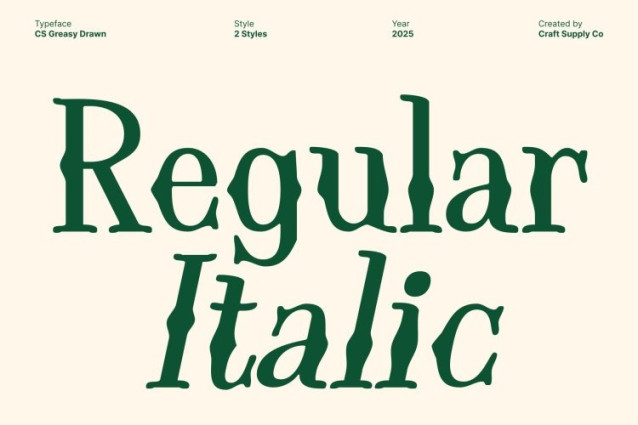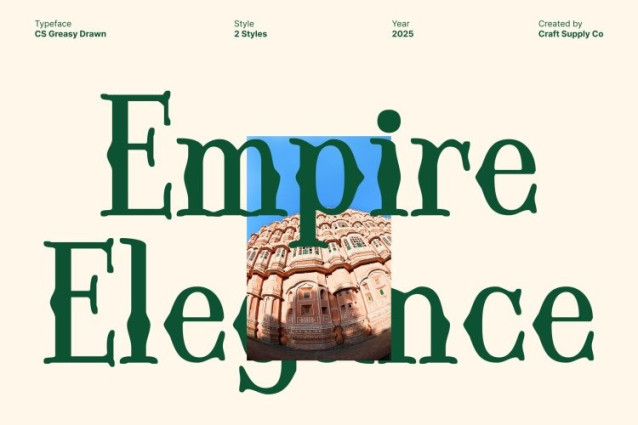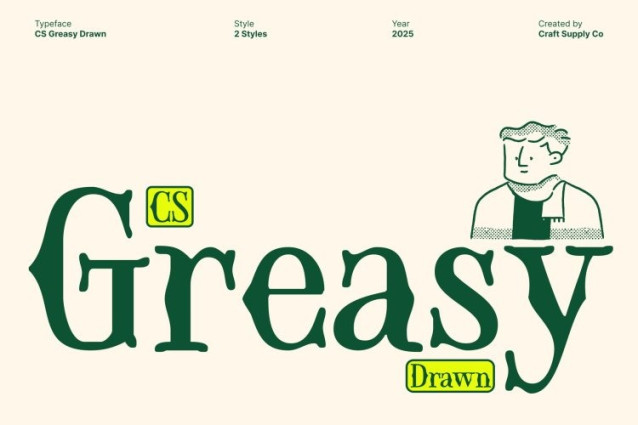
CS Greasy Drawn Font This font brings together the timeless elegance of Uncial letterforms and the decorative flair of Tuscan styling. Its unique structure echoes ancient scripts while adding distinctive flared details that elevate each character. This fusion creates a display font that feels historic, refined, and visually captivating perfect for designers seeking a typeface with deep cultural resonance.
Hand-Drawn Artistic Finish for Authentic Texture
Enhancing its classical foundation, features a hand-drawn artistic texture that introduces warmth, softness, and natural irregularity. The drawn effect enriches every curve, making the font feel organic and expressive.
Perfect for Book Titles, Luxury Branding, and Classical Posters
With its historic tone and artistic texture, this typeface shines in sophisticated, narrative-driven design. Use it for book titles, luxury branding, vintage packaging, exhibition posters, editorial features, or classical visual themes. Its decorative structure and expressive finish make it ideal for projects that require both authority and creativity.
A Refined Typeface That Balances Tradition and Expression
This font delivers a beautiful balance of tradition and modern artistry. Its Uncial foundation conveys heritage and prestige, while the Tuscan details and drawn texture add freshness and individuality.